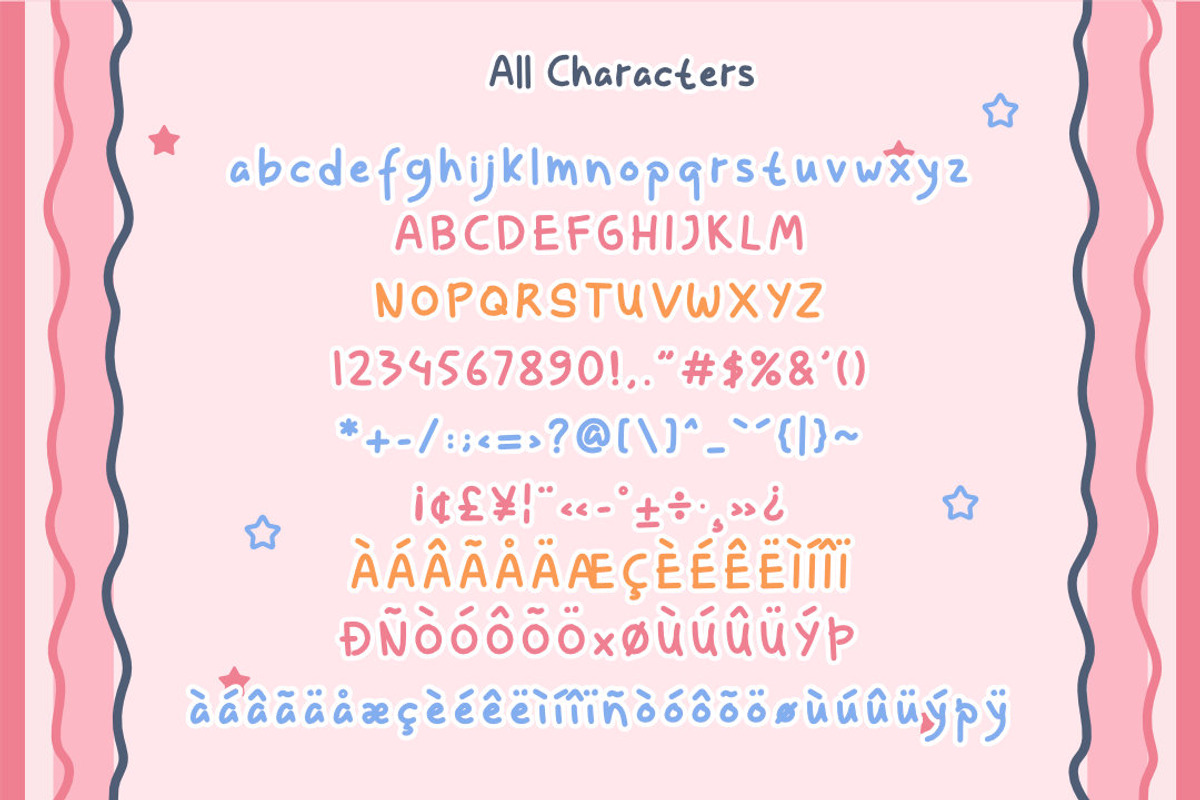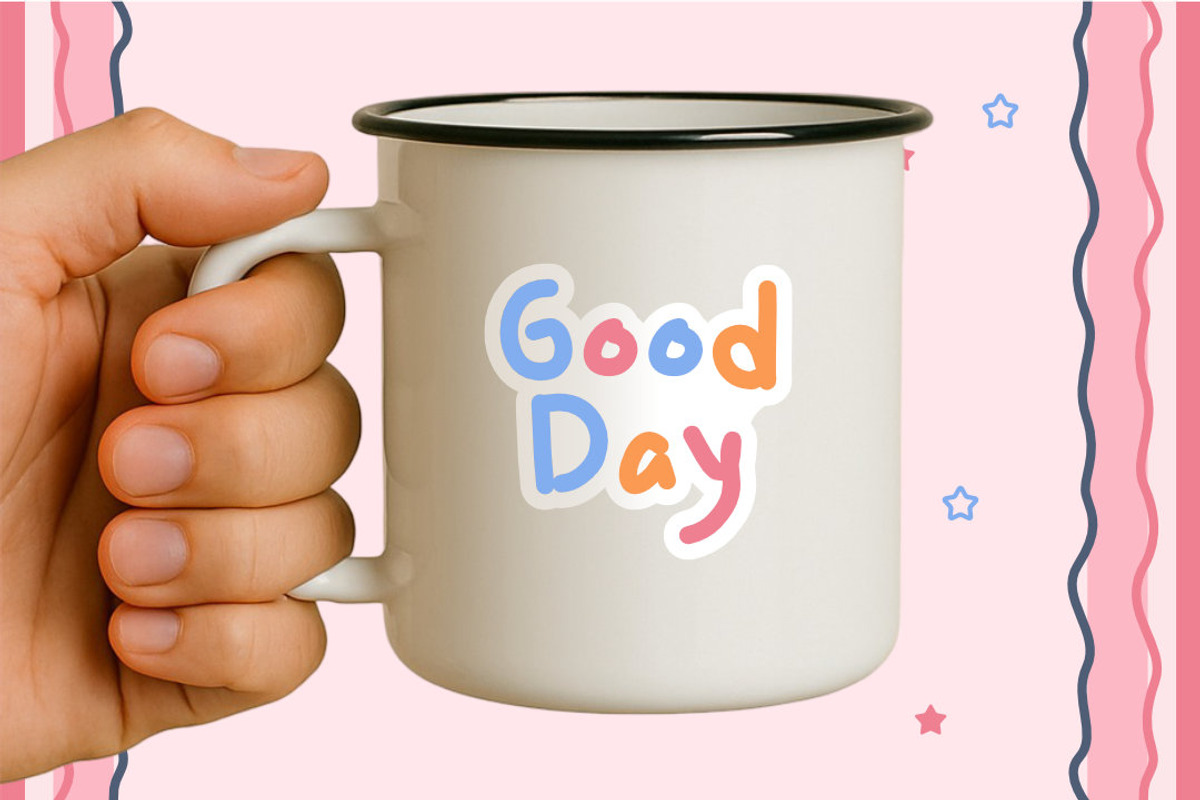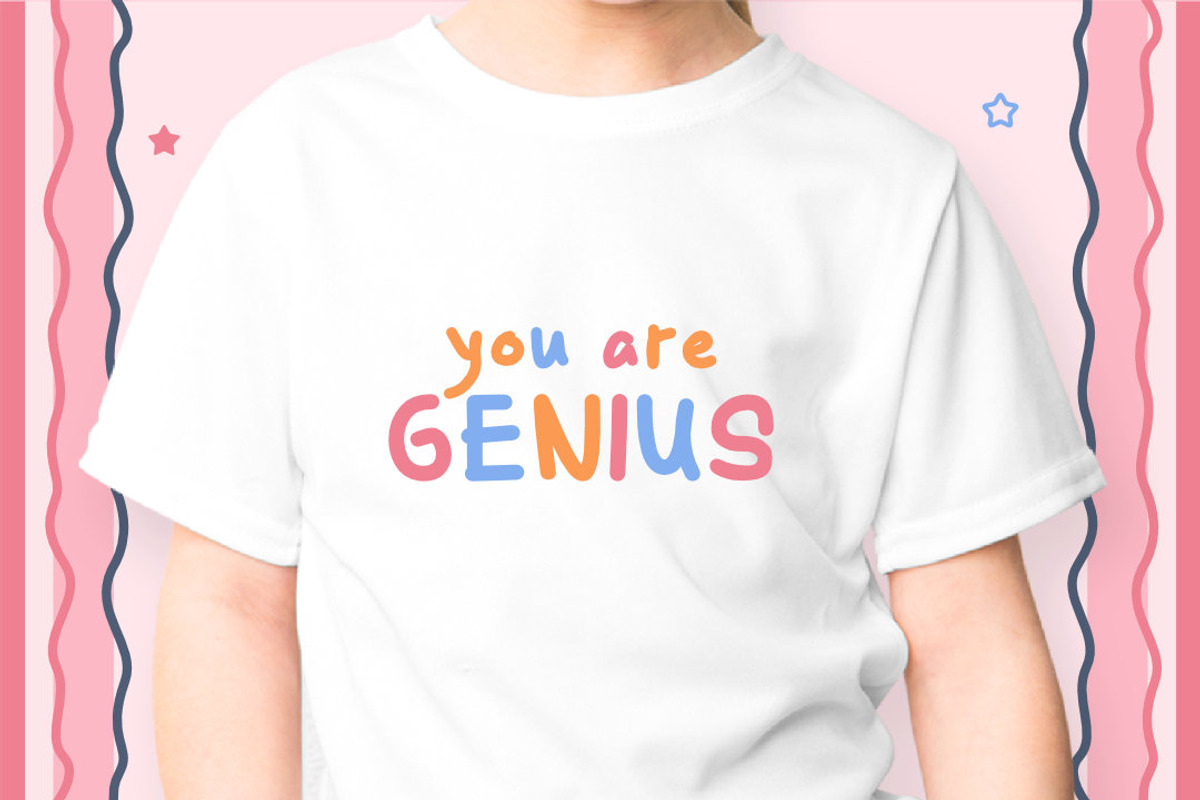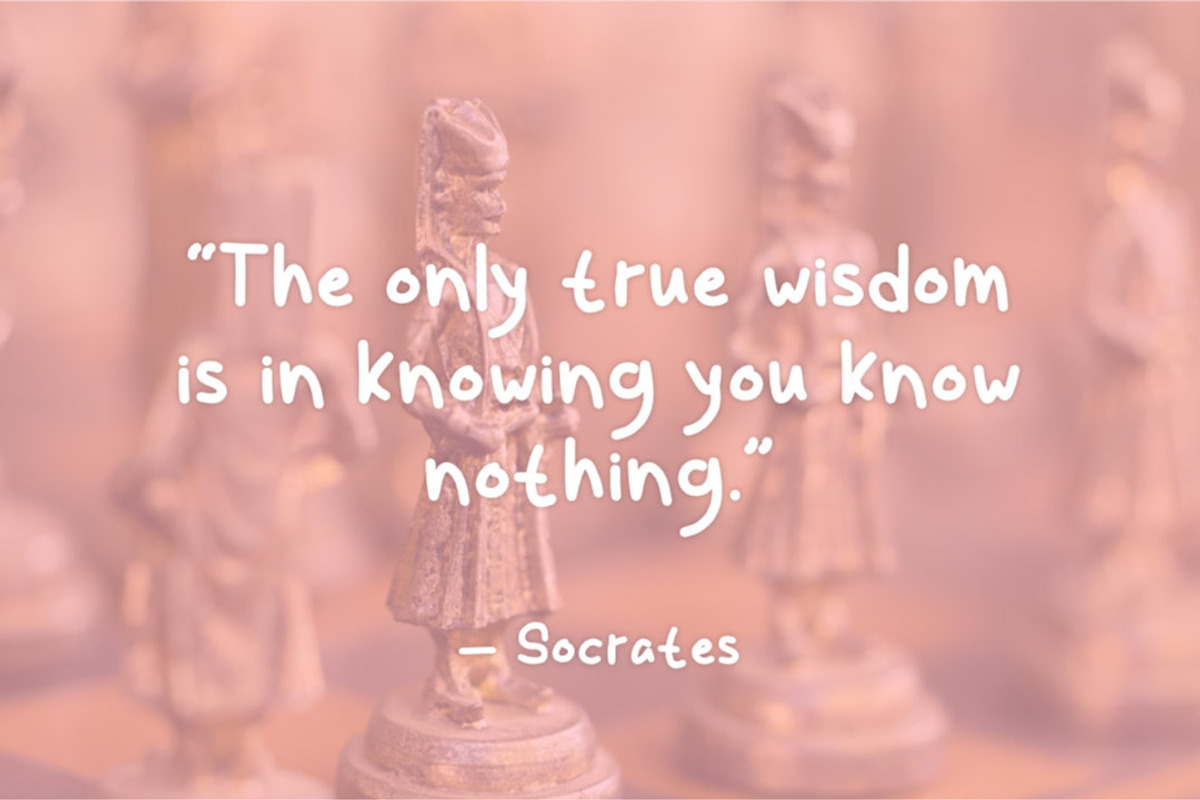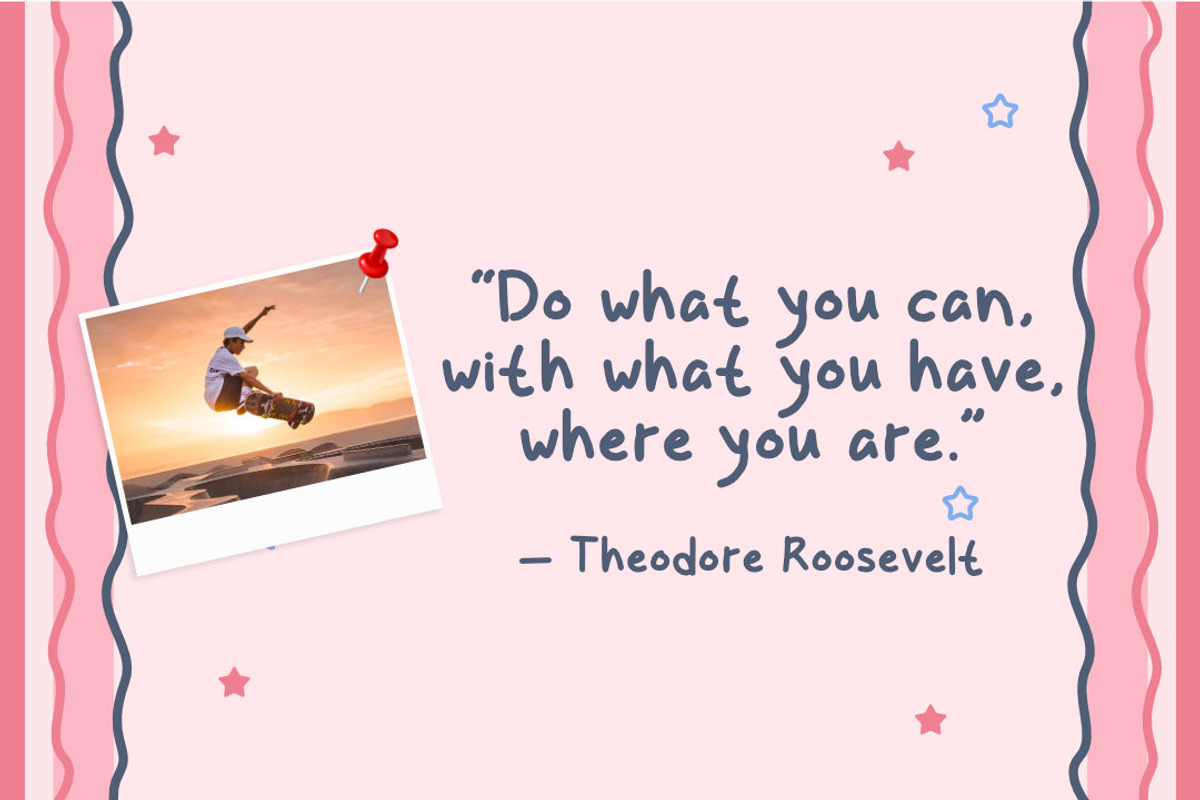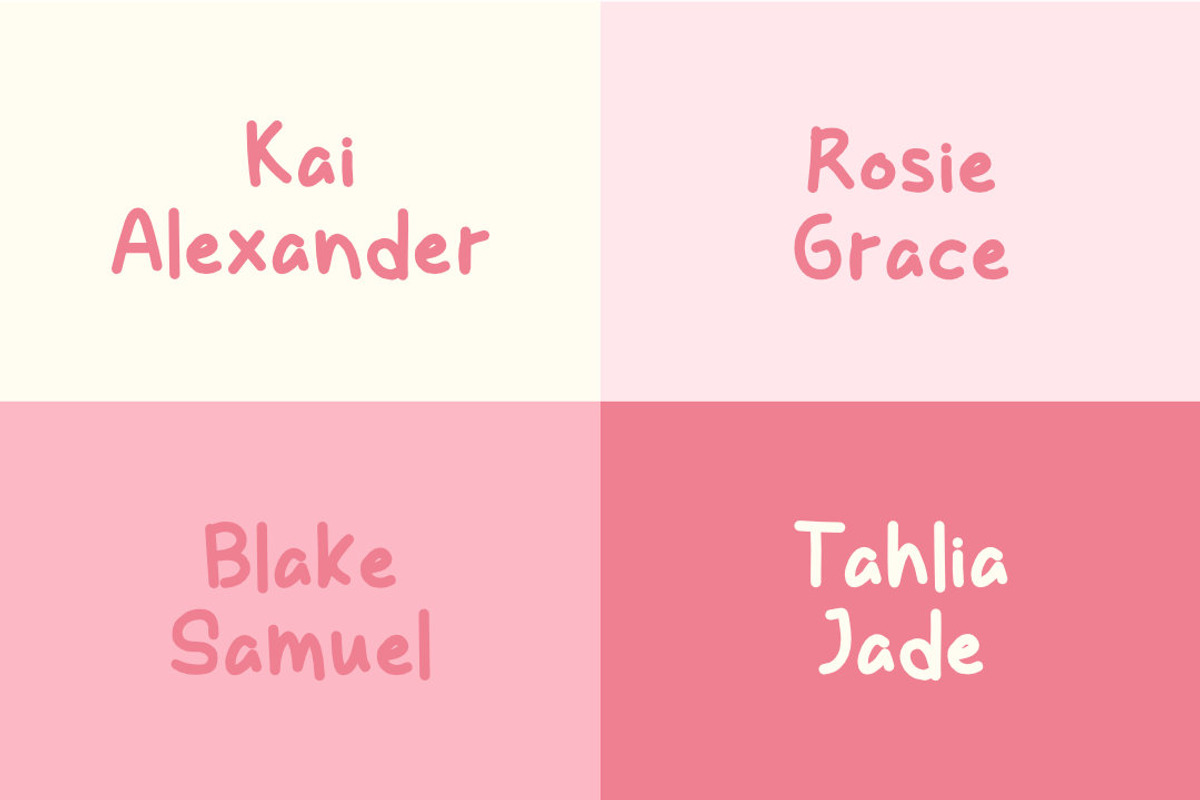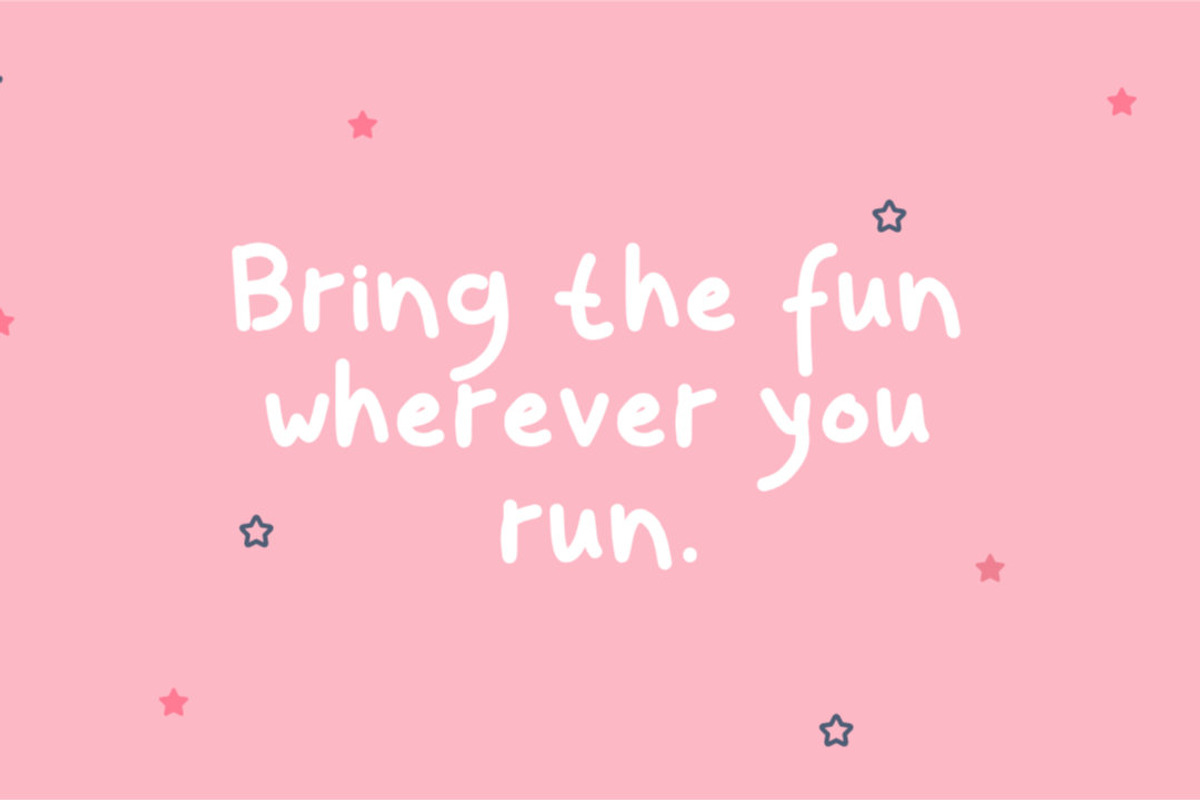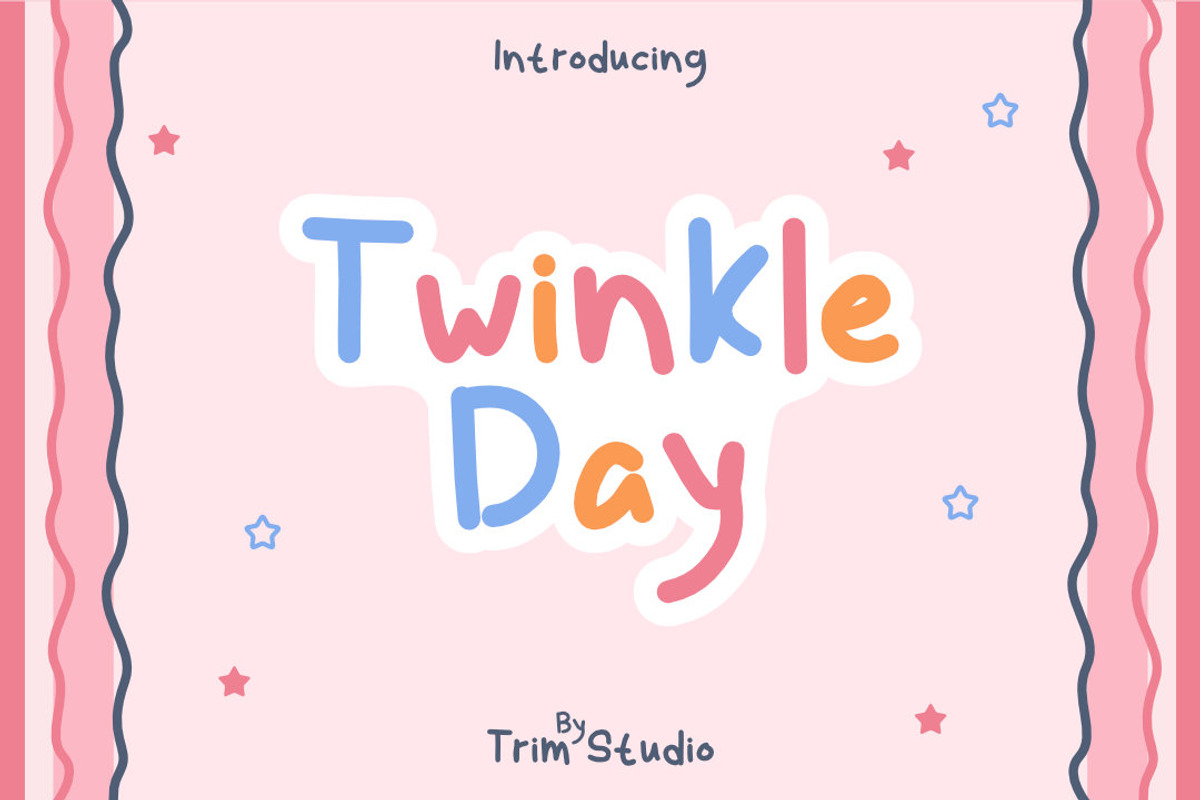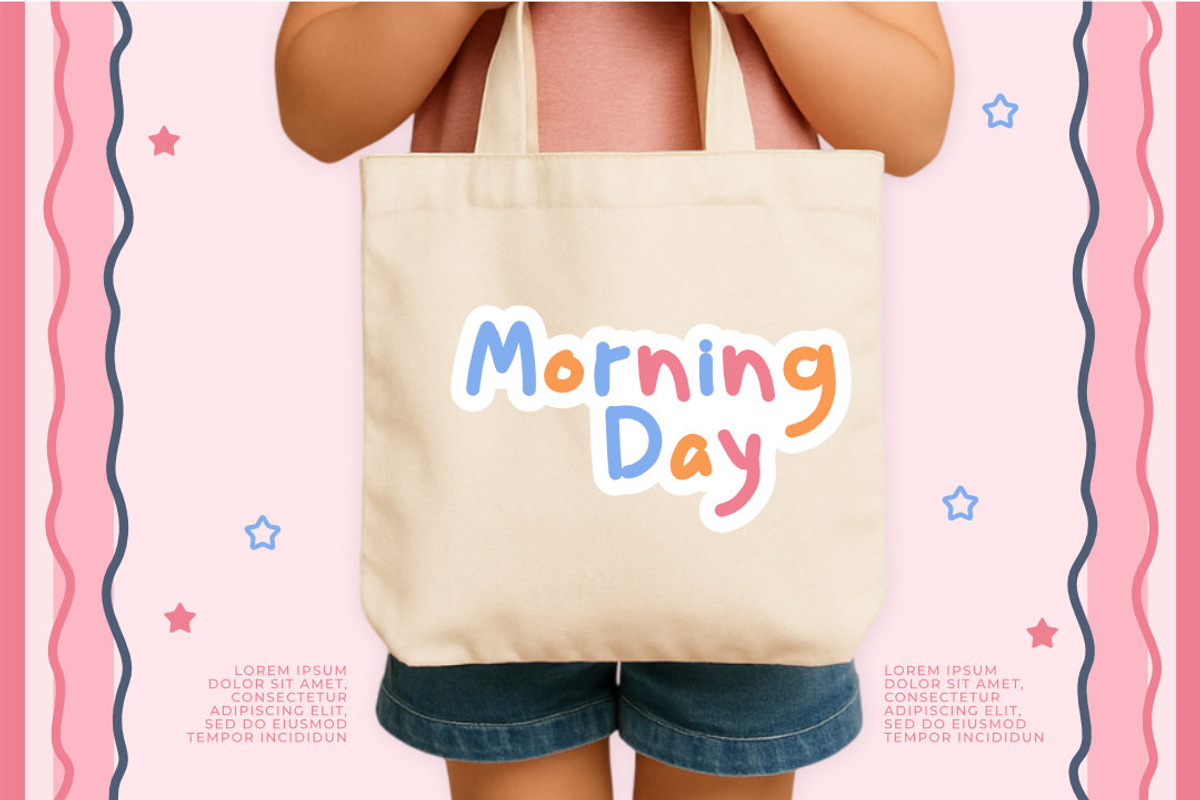
Twinkle Day - Quirky Font
Twinkle Day is a fun and quirky handwritten font with the charm and playfulness of comic-style lettering, perfect for dialogue bubbles, lighthearted titles, and cheerful creative projects.